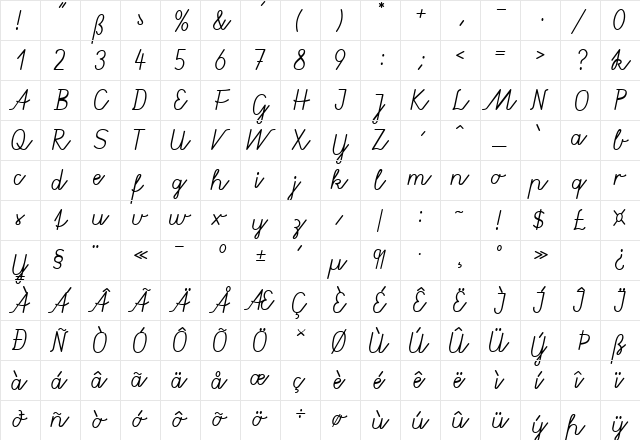
Gruenewald VA Regular
| Foundry | Peter Wiegel, nach dem Schriftentwurf von Dr. H. Grald |
| Designer | Peter Wiegel |
Design Context for Gruenewald VA Typeface
Gruenewald VA takes a measured approach to typography — its balanced proportions and neutral character make it a reliable workhorse for both digital and print work.